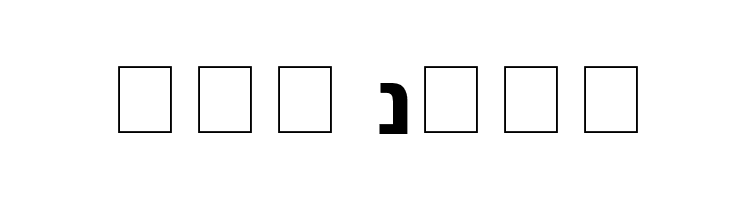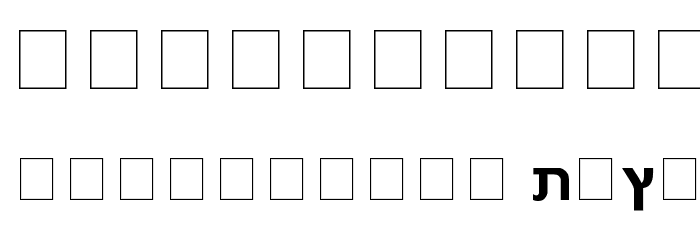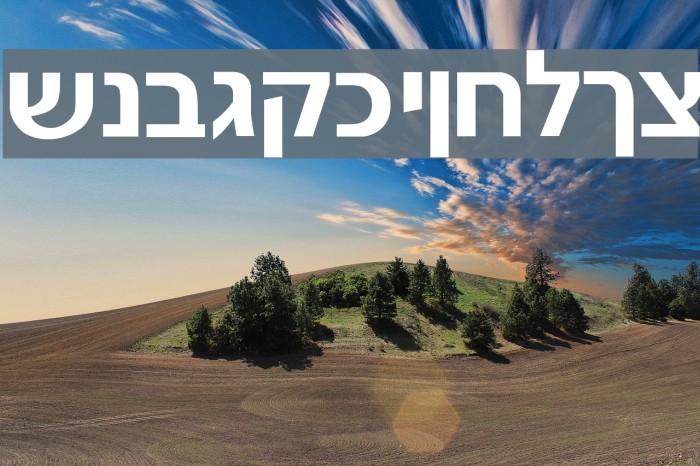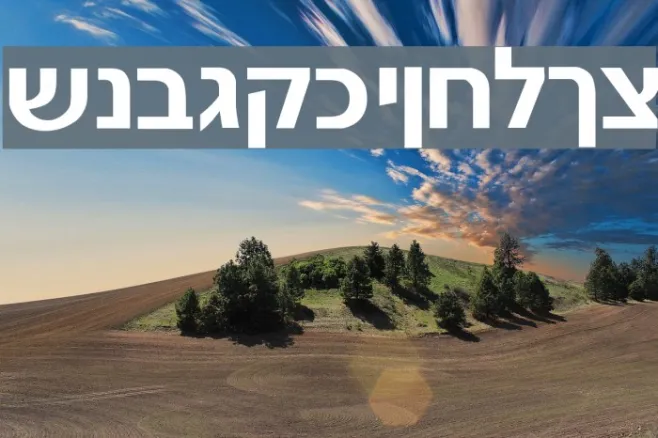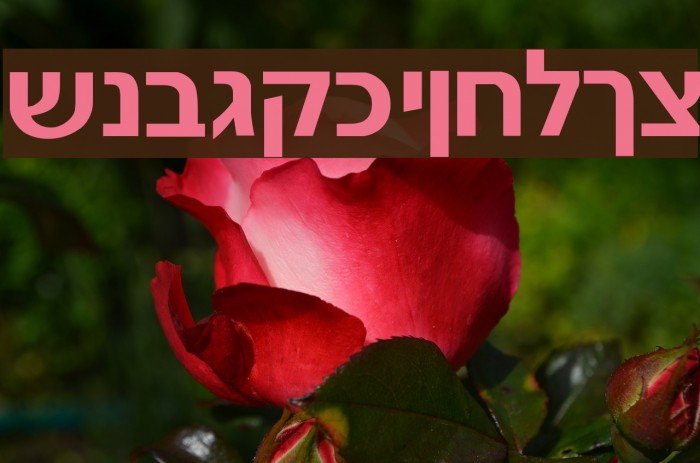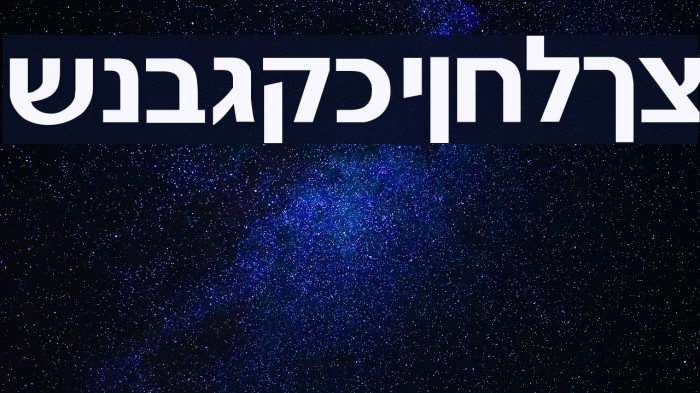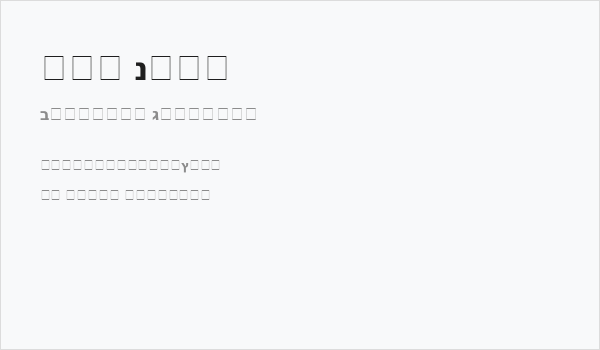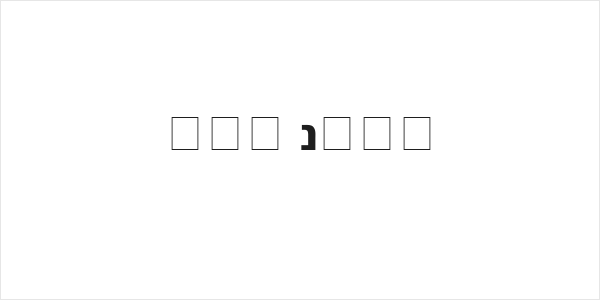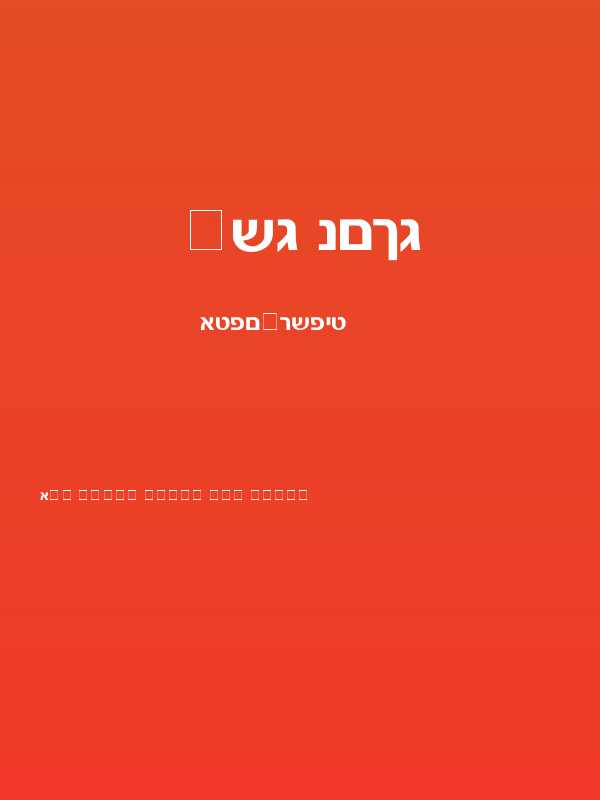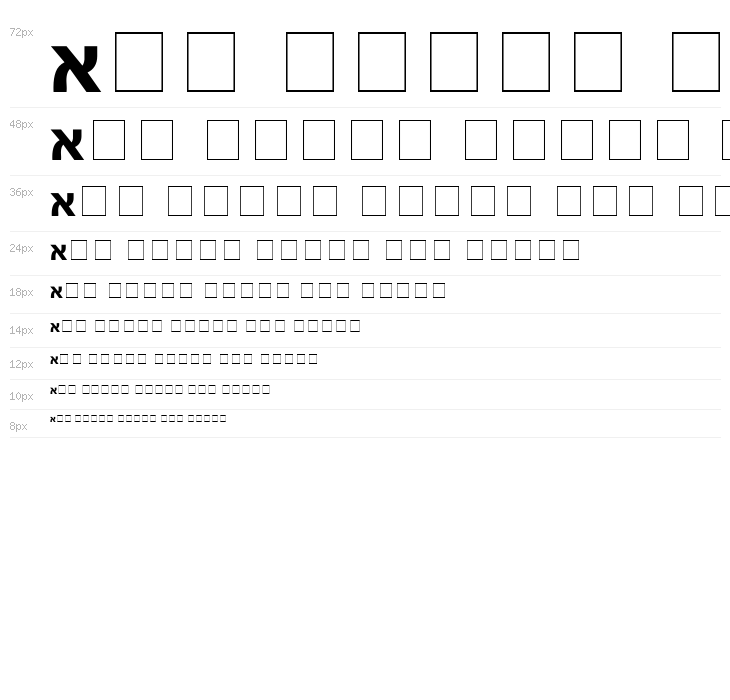
Gad Bold Font
Gad Bold Description
A bold, geometric sans-serif font with strong, uniform strokes and minimal contrast. The letterforms are clean and modern, with consistent proportions and a solid, impactful appearance.
| Use Case | Headlines, Logos, Posters, Signage |
| Proposed Projects | Branding, headlines, posters, signage, digital interfaces. |